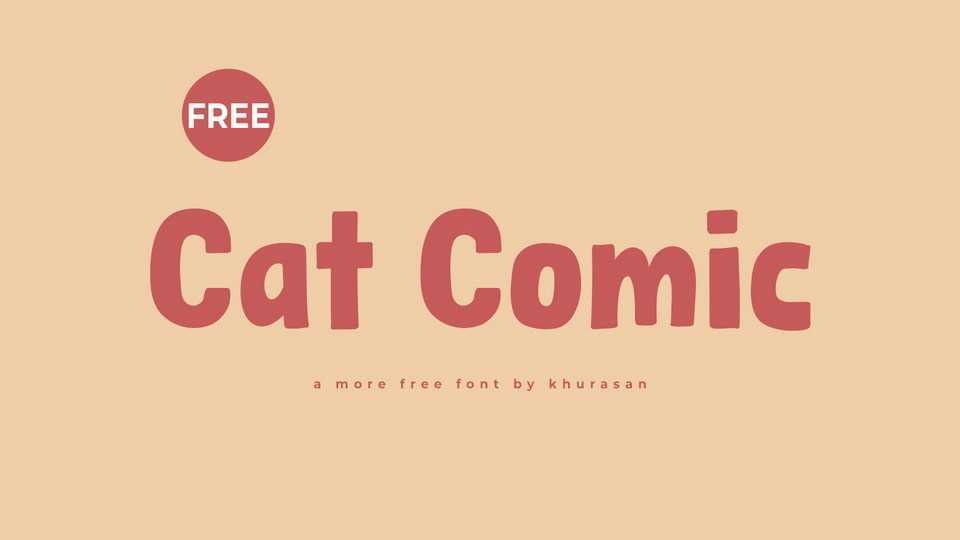
Download Cat Comic font, a playful and cheerful hand-drawn cartoon typeface that brings a burst of joy and whimsy to your designs. Cat Comic font is crafted with lively strokes and delightful details, capturing the essence of cartoon charm with a smiley flair.